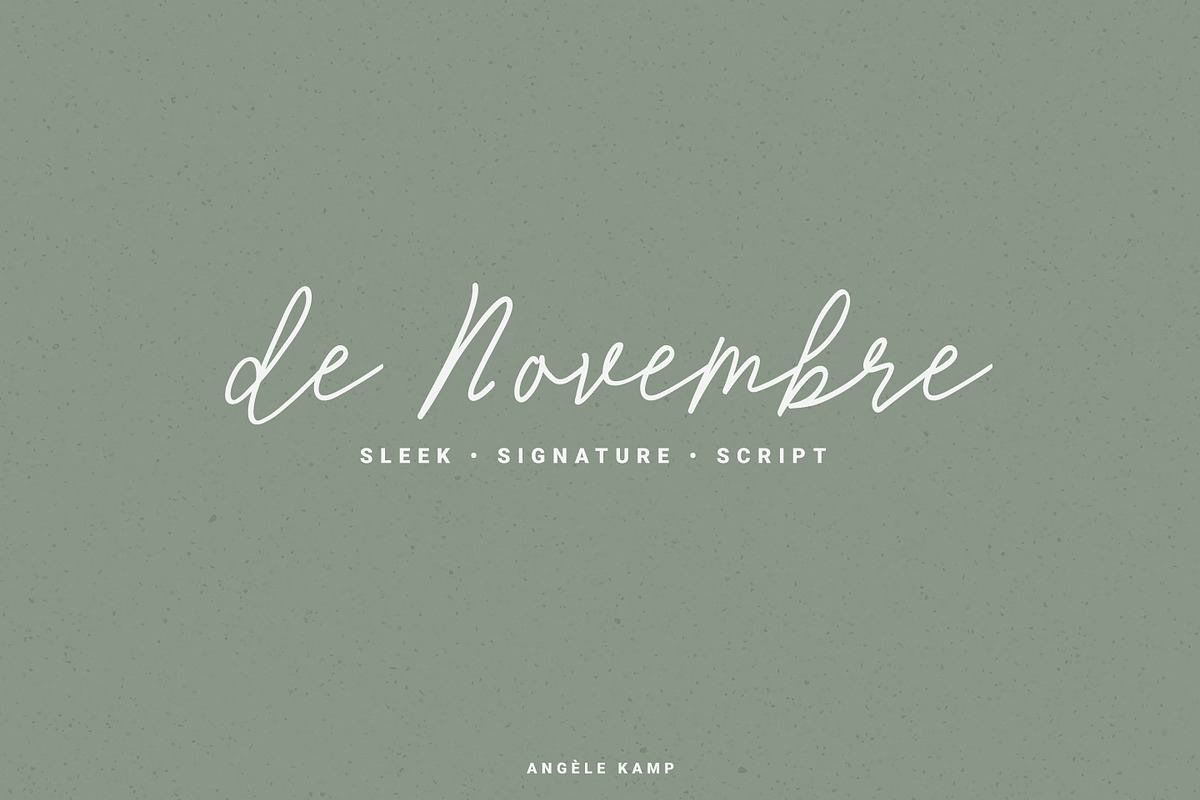
De Novembre Sleek Signature Script Font Free Download is a beautifully crafted script typeface that captures the elegance and sophistication of handwritten signatures. With its sleek, flowing curves and refined style, this font is perfect for luxury branding, personal logos, wedding invitations, and more. It adds a touch of class and a personal, intimate feel to your designs.